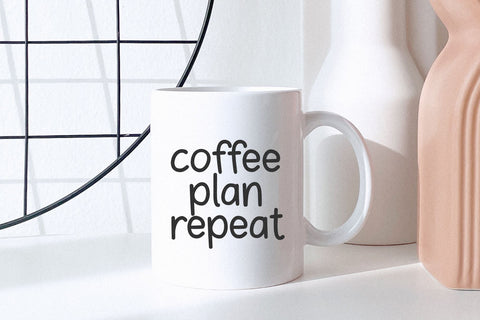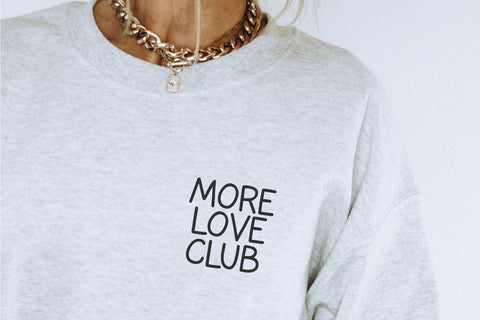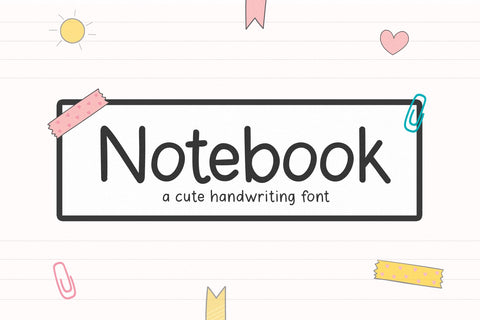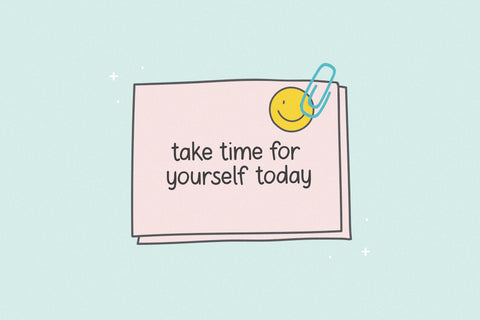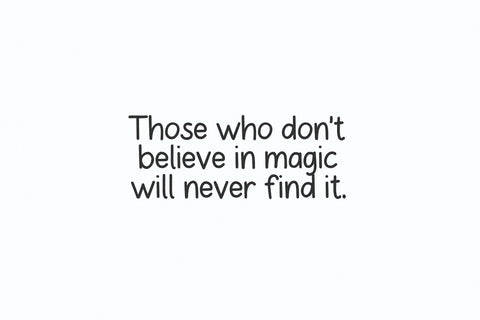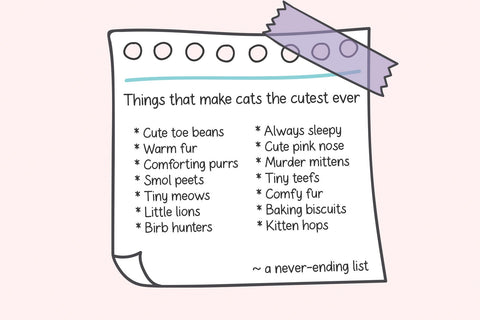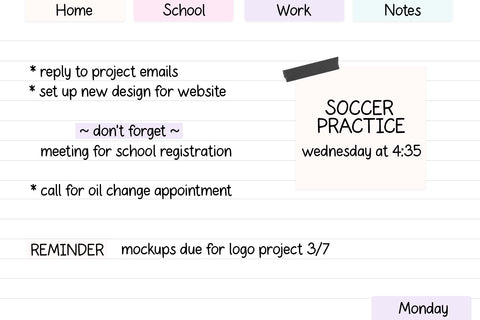
Notebook - Cute Handwriting Font
Notebook is a cute handwriting font.
This font is perfect for your craft projects, planners, goodnotes, logos, signs, invitations, shirts, teachers and more!